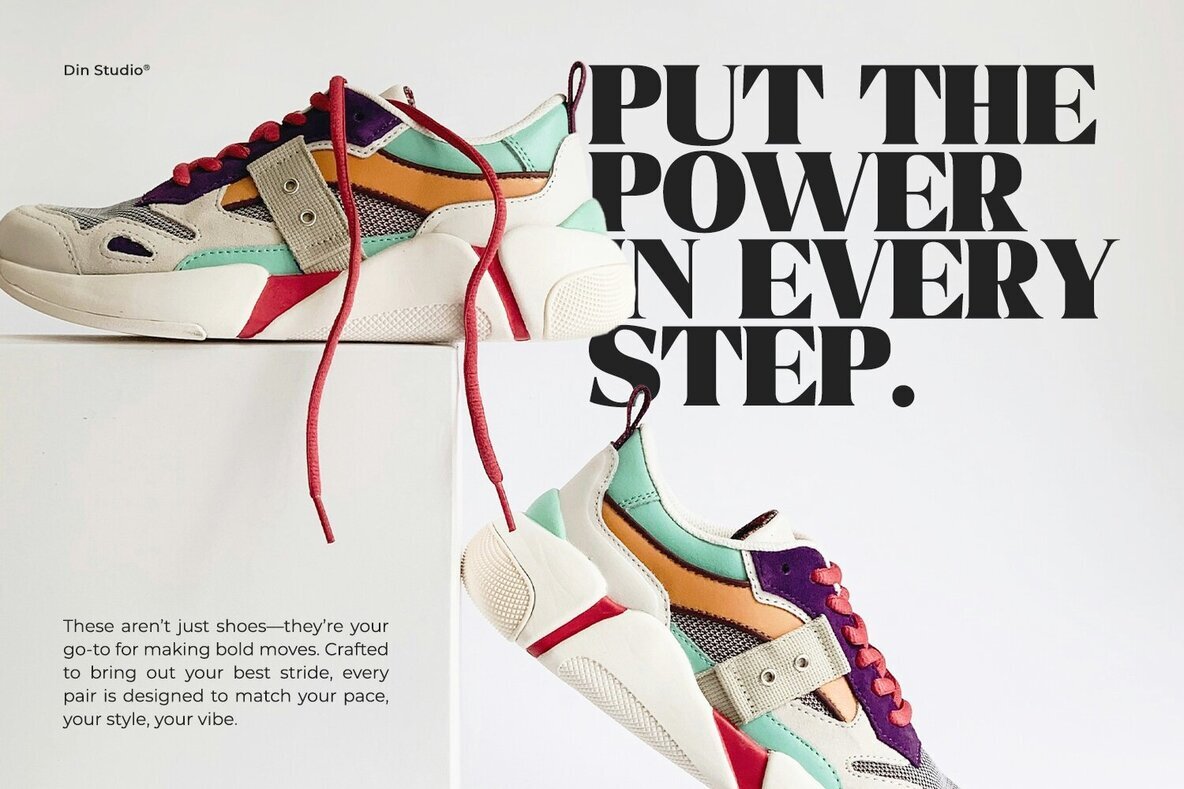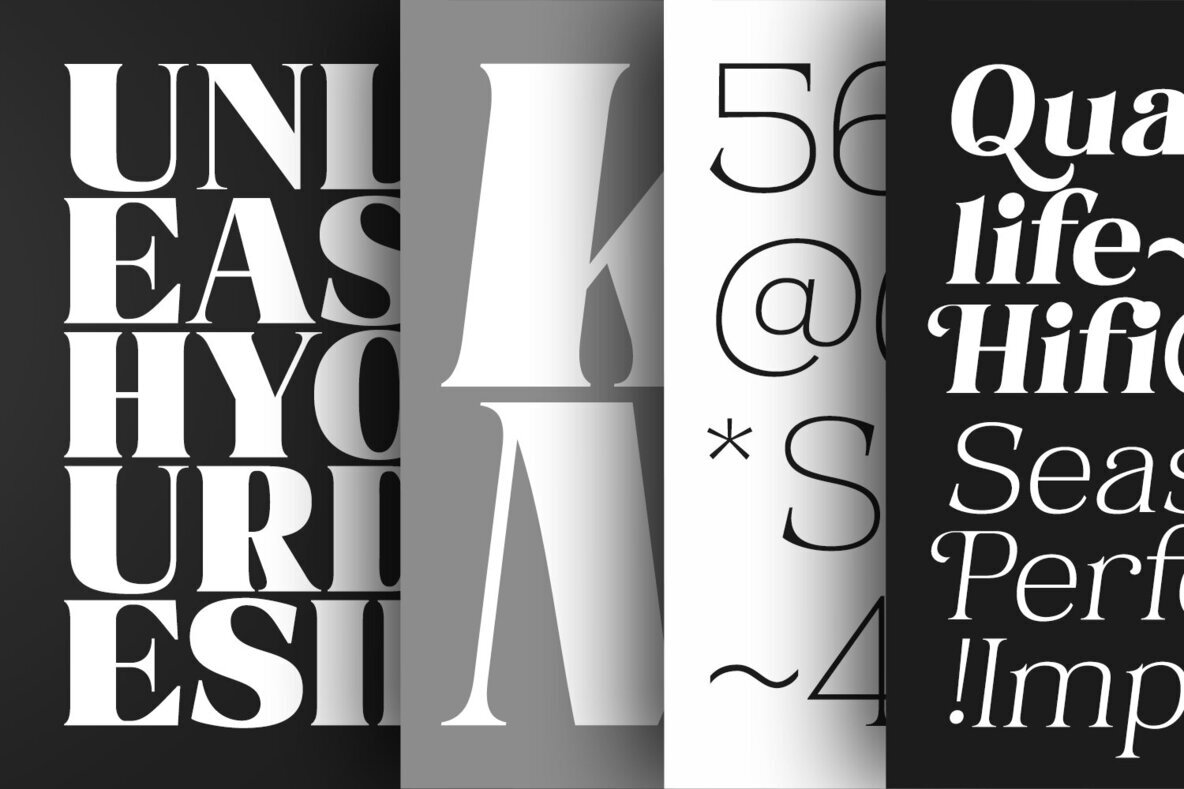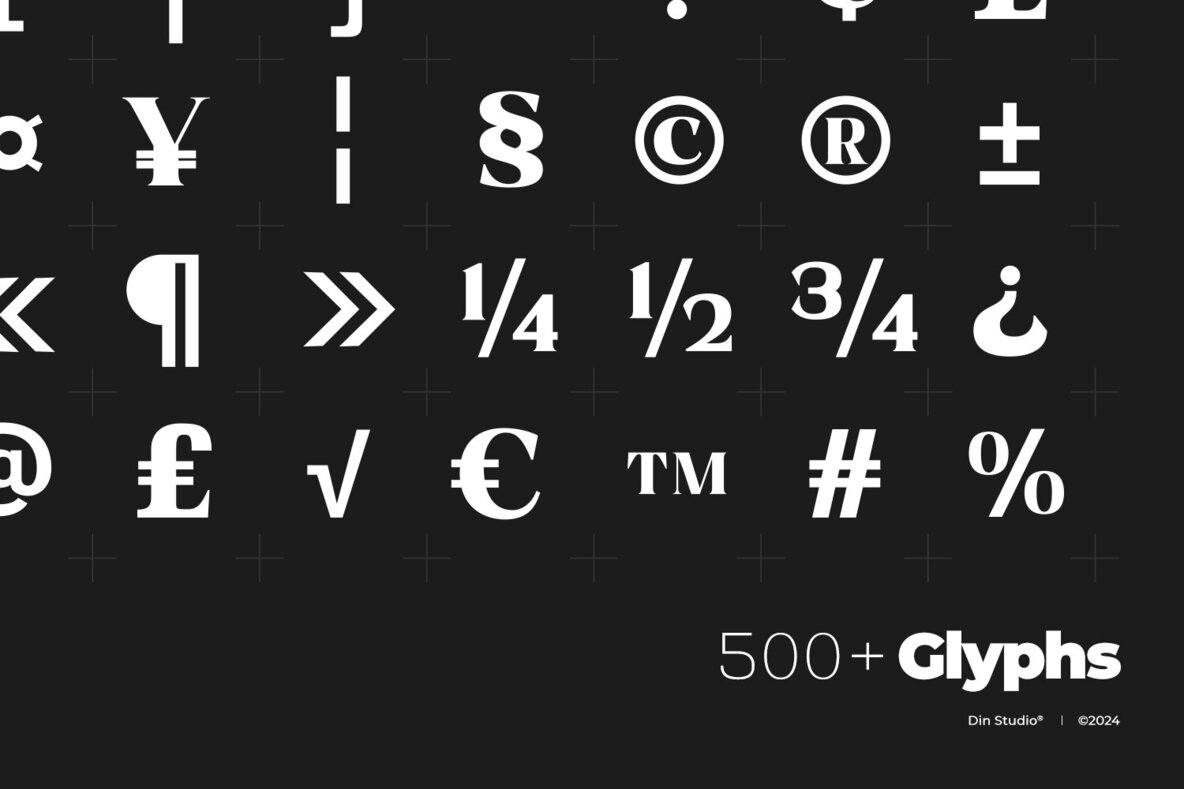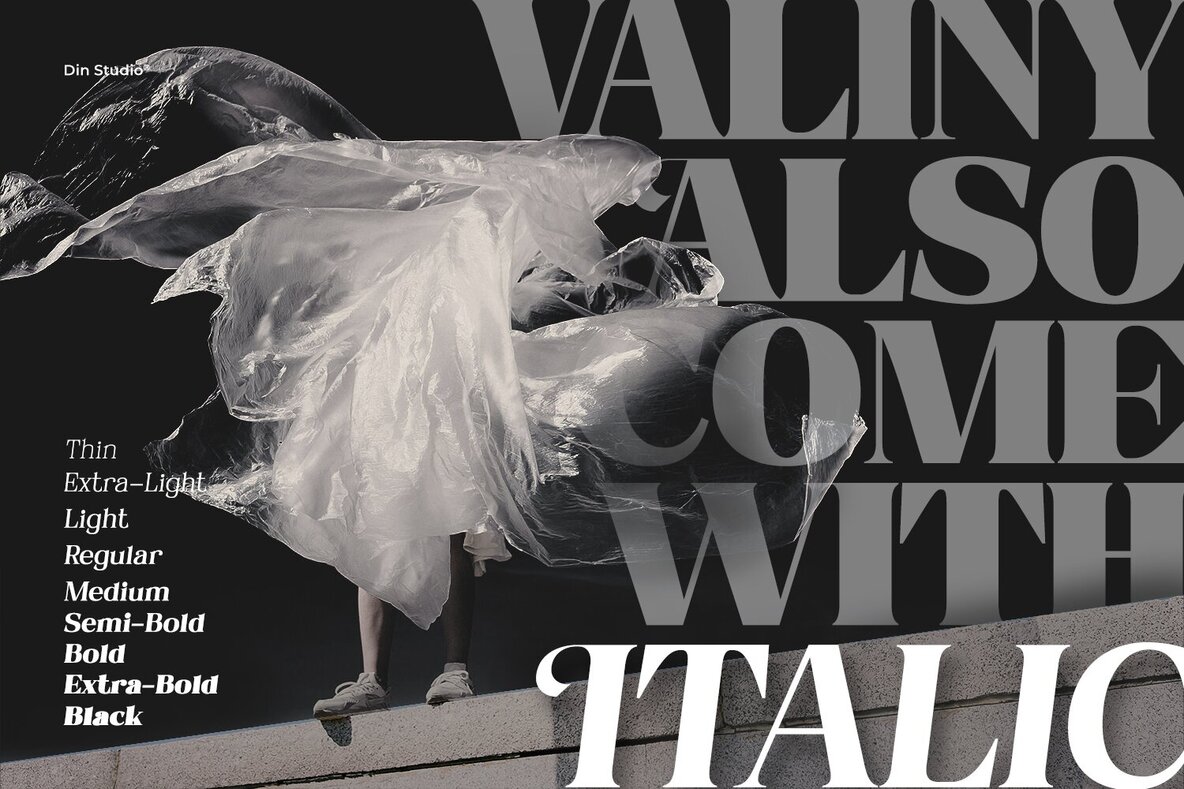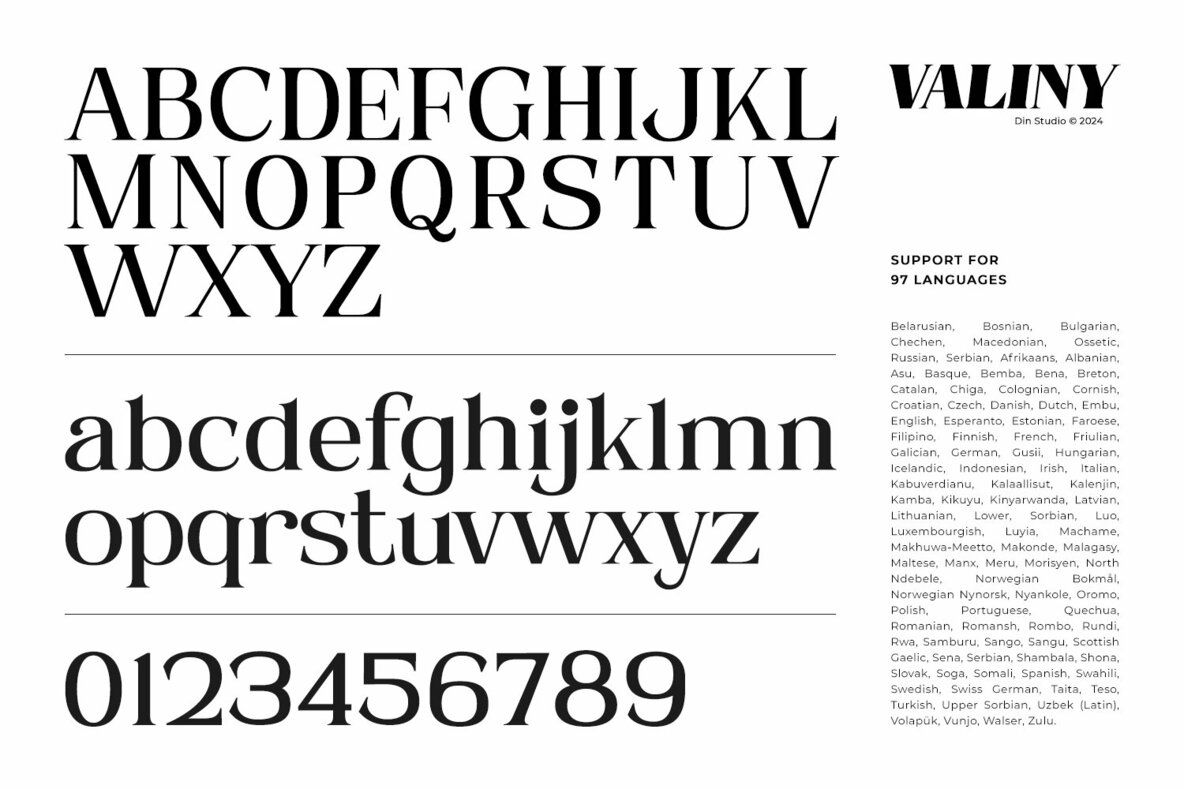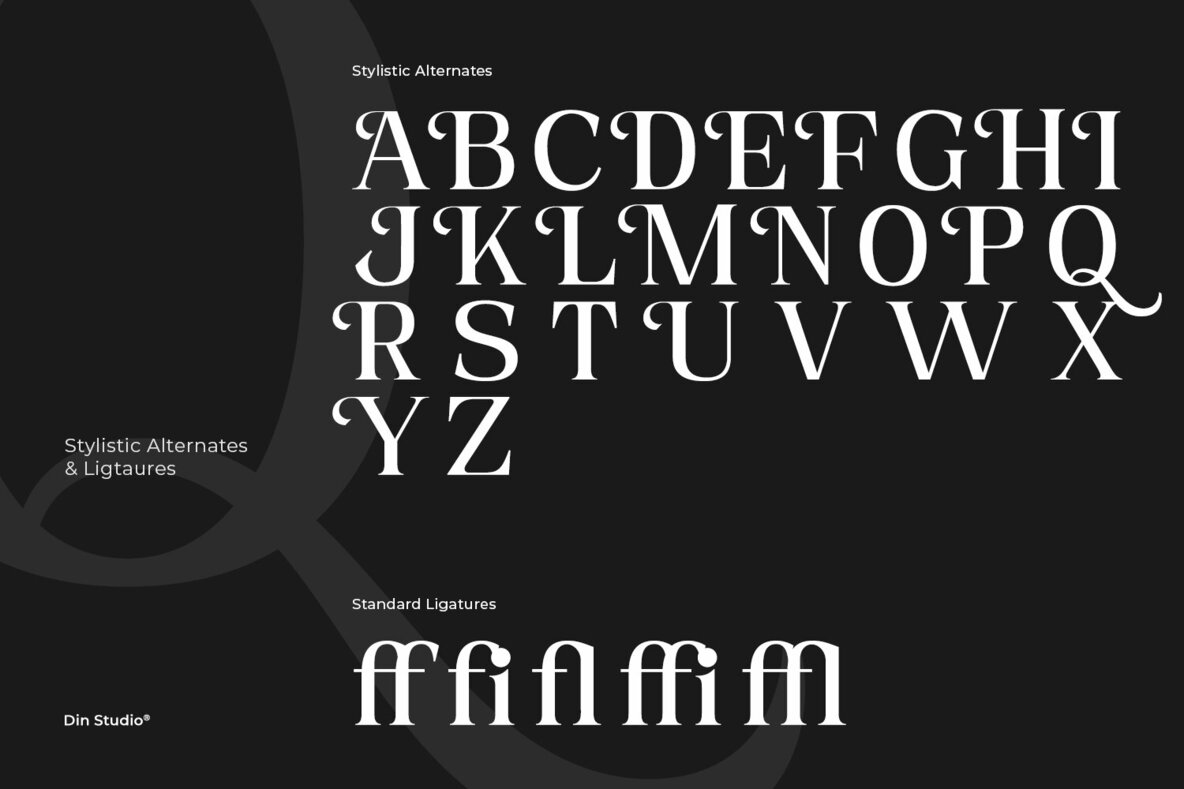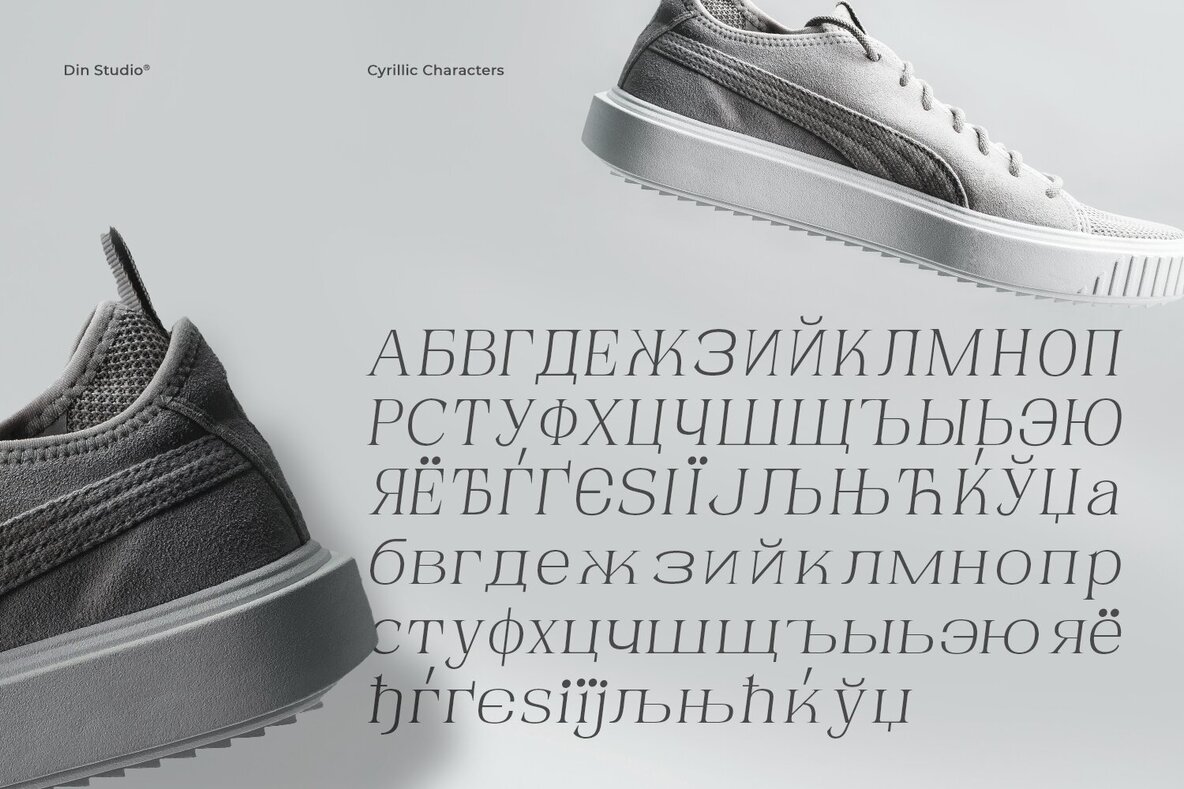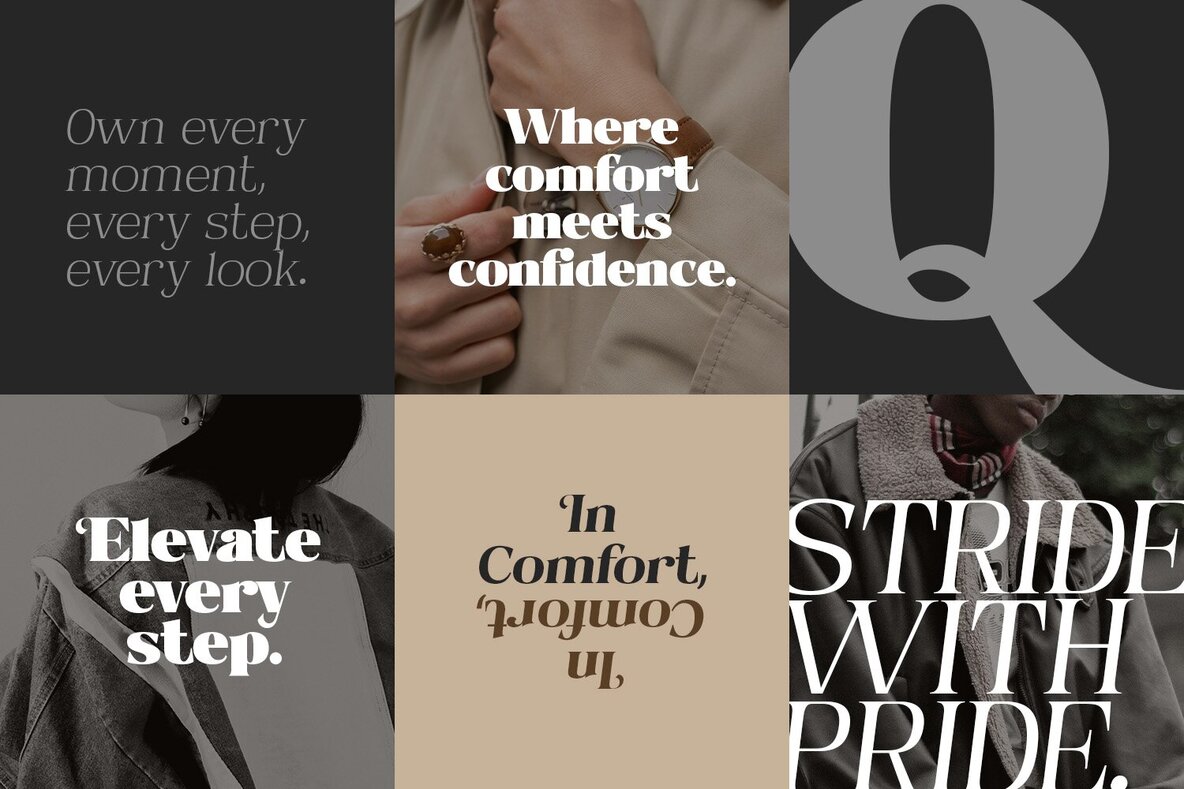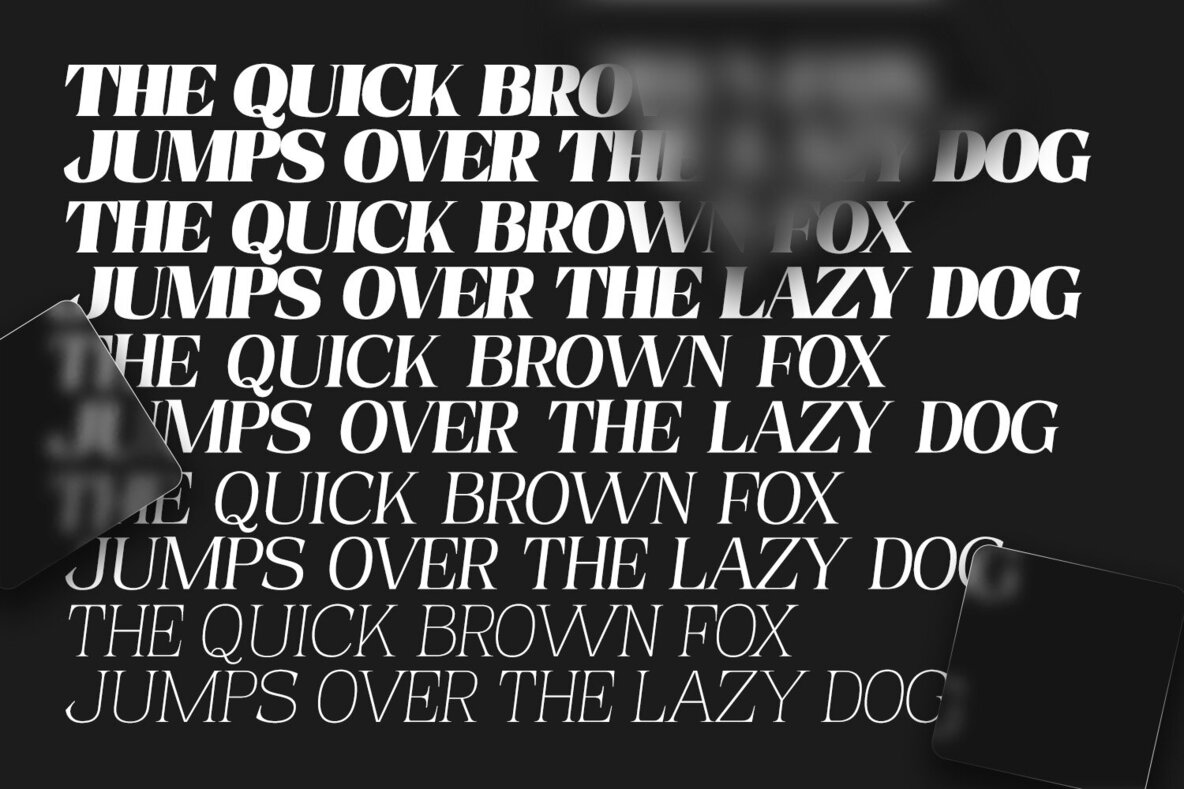
Valiny Font
Valiny is a sophisticated serif font family that seamlessly blends timeless elegance with modern flair. Designed with nine distinct weights and an elegant italic version, Valiny offers a harmonious balance of proportions and refined detail, making it a versatile choice for various design projects. Each letterform exudes confidence and sophistication, providing your work with a polished and professional edge.
The font family includes a comprehensive set of weights ranging from Thin to Black, ensuring flexibility in your designs. Valiny features stylistic alternates, ligatures, multilingual support, PUA encoding, as well as numerals and punctuations. This makes it particularly suitable for headlines, logos, posters, invitations, branding materials, packaging, print media, and editorial layouts. Explore Valiny's potential to enhance your creative projects by previewing its various applications.